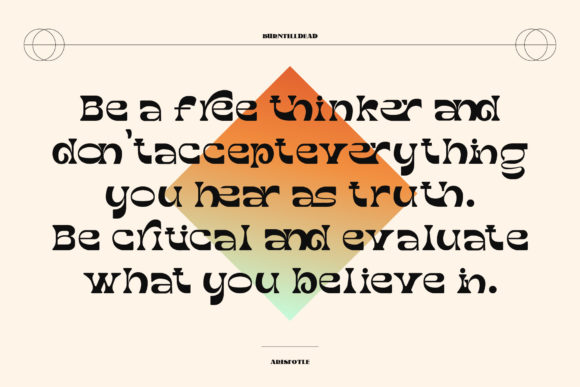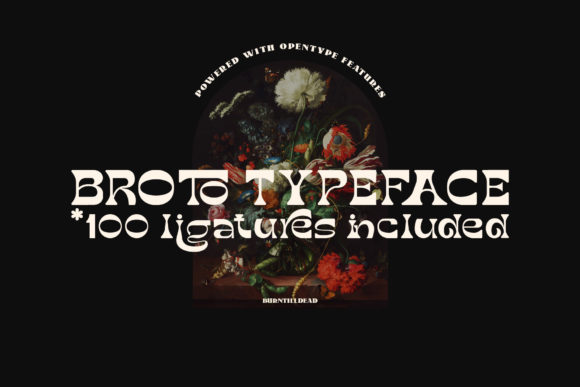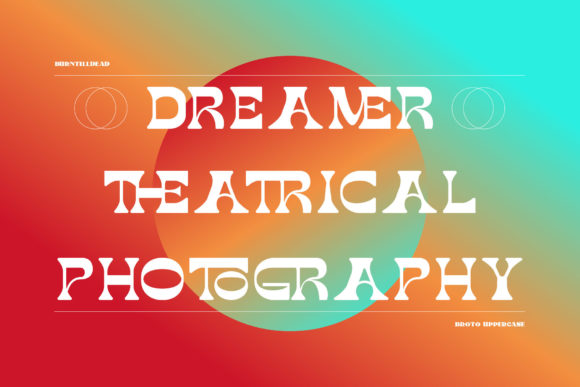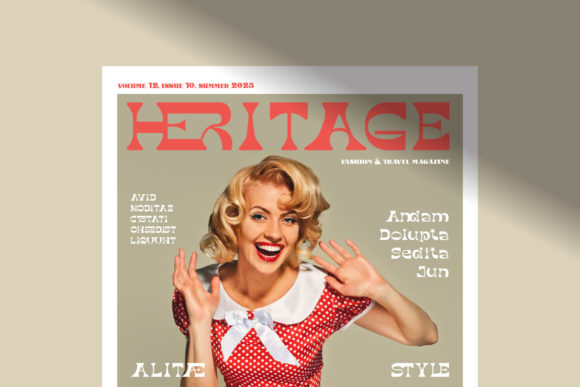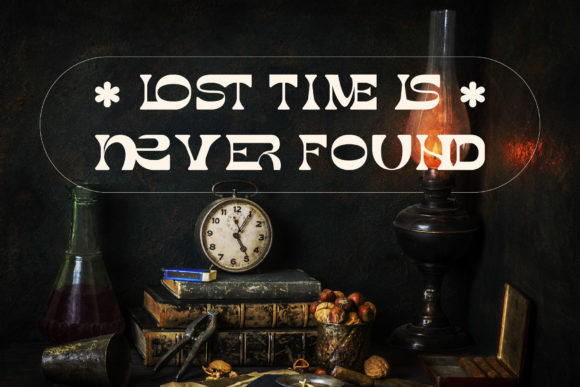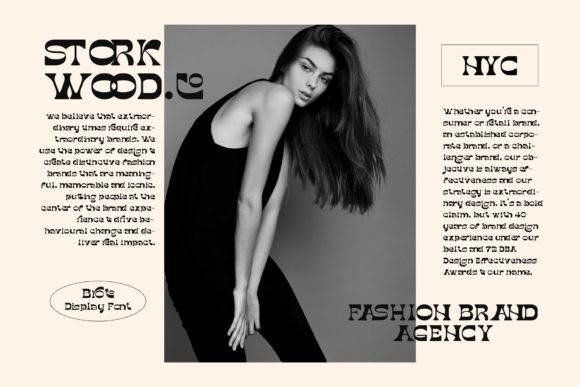
Introducing Broto Font: A Cool, Retro-Styled Serif Font for Magical Designs
Are you a designer or crafter looking for a unique font to add a touch of magic to your designs? Look no further than Broto Font, a cool, retro-styled serif font that’s sure to transport your creations to a whimsical world. With its distinctive style and PUA encoding, Broto Font is the perfect choice for anyone seeking to add a dash of personality to their designs.
The Charm of Broto Font
Broto Font boasts a charming, retro aesthetic that’s reminiscent of a bygone era. Its serif design features elegant lines and curves, giving it a sophisticated yet playful feel. This font is perfect for designs that require a touch of nostalgia, such as vintage-inspired posters, logos, and packaging. Whether you’re creating a brand identity or a one-of-a-kind craft project, Broto Font is sure to add a captivating charm to your work.
Whimsical Style for Magical Designs
One of the standout features of Broto Font is its whimsical style, which is sure to immerse your designs in a magical world. The font’s playful curves and lines evoke a sense of wonder and enchantment, making it perfect for designs that require a touch of fantasy. Imagine using Broto Font to create a spellbinding logo for a fantasy novel or a bewitching poster for a themed event. The possibilities are endless, and the results are sure to be nothing short of magical.
Broto Font is PUA (Private Use Area) encoded, which means that you can access all of the glyphs and swashes with ease. PUA encoding allows designers to access additional characters and glyphs that are not available in standard fonts, giving you greater creative freedom and flexibility. With Broto Font, you can effortlessly add flourishes and embellishments to your designs, taking them to the next level.
Broto Font is an excellent choice for designers and crafters alike. Whether you’re creating digital designs or handmade crafts, this font is sure to inspire your creativity. Designers can use Broto Font to create stunning brand identities, packaging, and advertising materials, while crafters can use it to add a personal touch to their handmade projects, such as journals, cards, and scrapbook pages.
Tips for Using Broto Font
To get the most out of Broto Font, here are a few tips to keep in mind:
• Use Broto Font to add a touch of whimsy to your designs, such as in headings, titles, and captions.
• Experiment with different font sizes and colors to create visual interest and hierarchy.
• Combine Broto Font with other fonts to create a unique and eye-catching design.
• Take advantage of PUA encoding to access additional glyphs and swashes, adding an extra layer of creativity to your designs.
In conclusion, Broto Font is a cool, retro-styled serif font that’s perfect for designers and crafters seeking to add a touch of magic to their designs. With its whimsical style, PUA encoding, and charming aesthetic, Broto Font is sure to transport your creations to a world of wonder and enchantment. So why wait? Download Broto Font today and unleash your creativity!